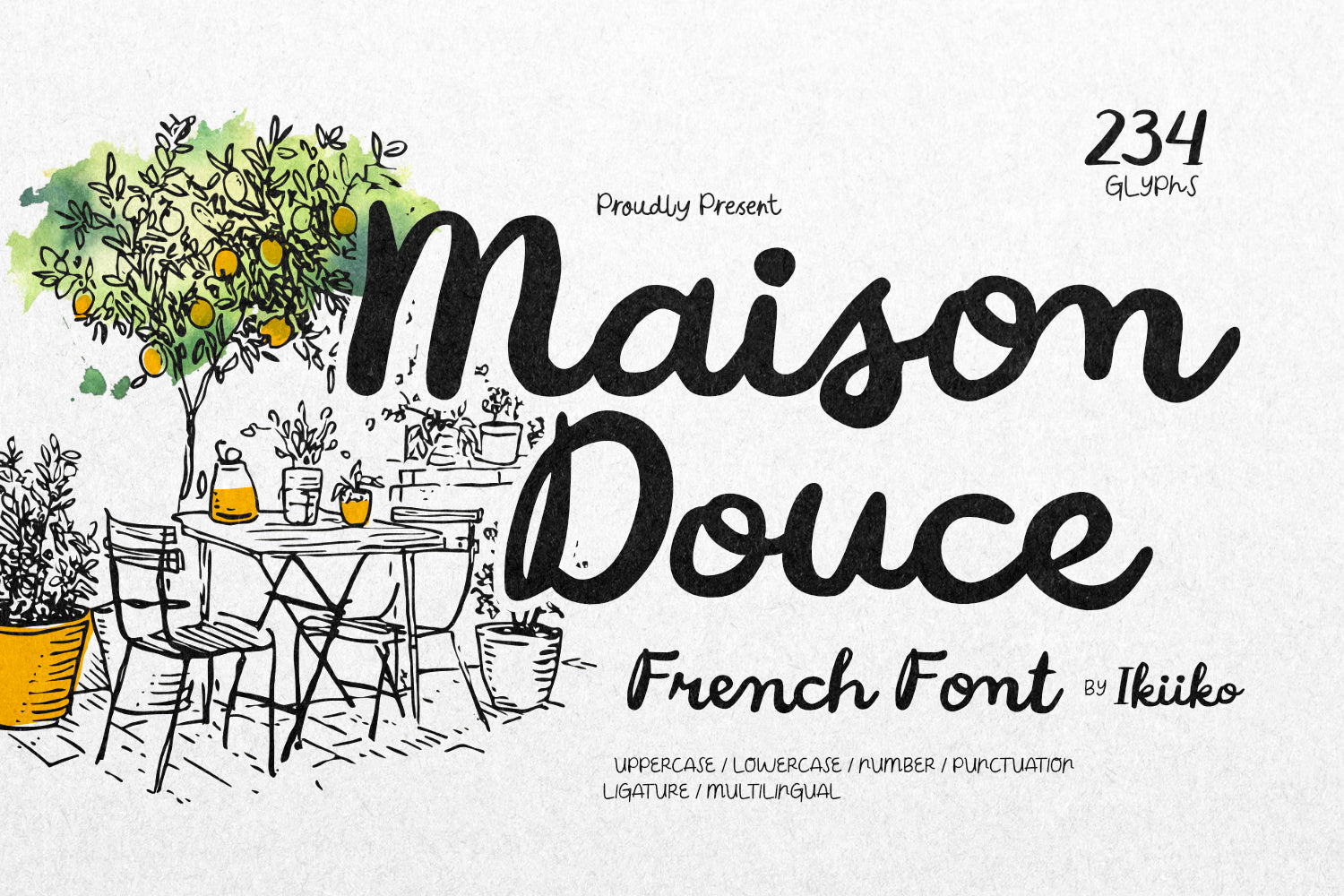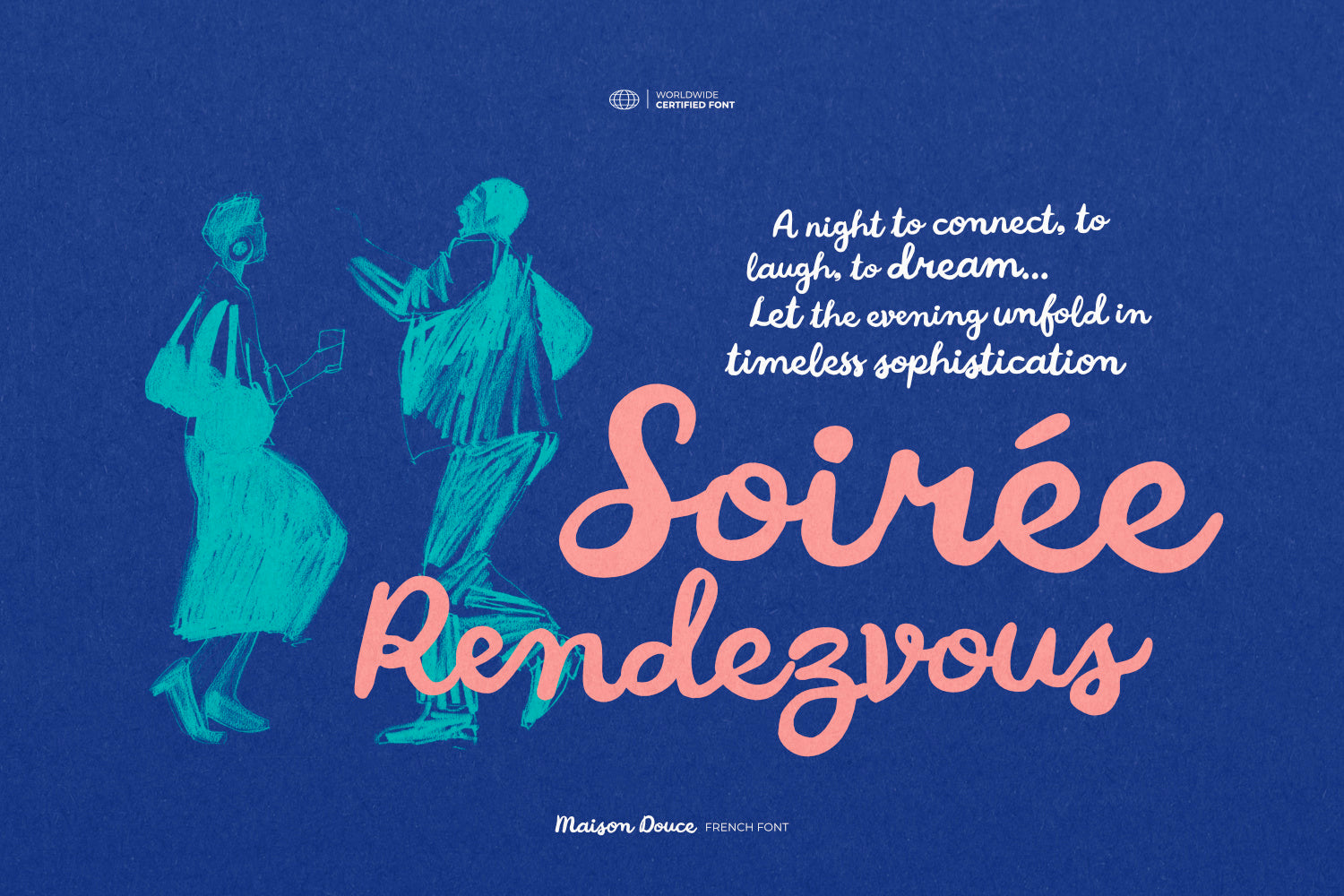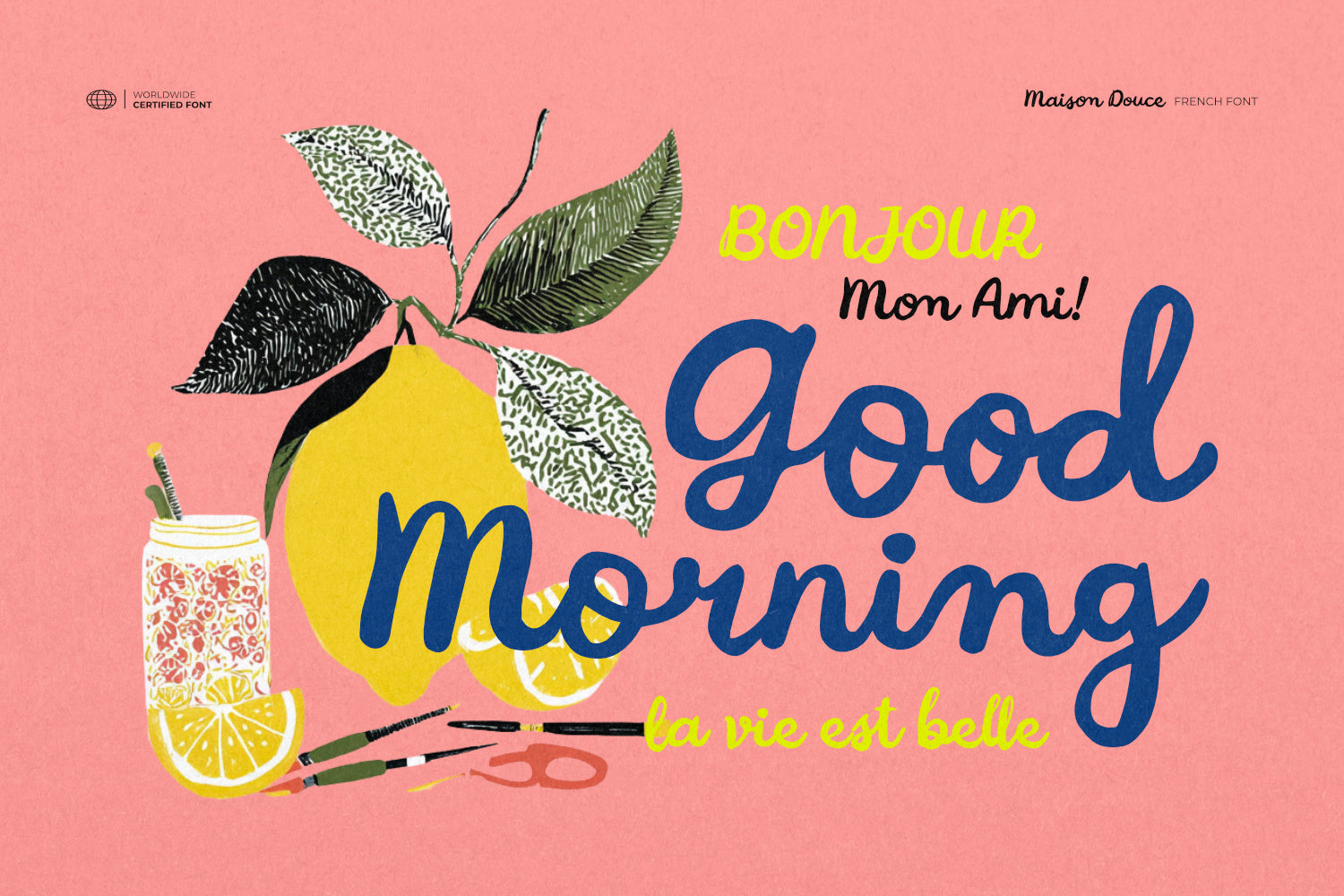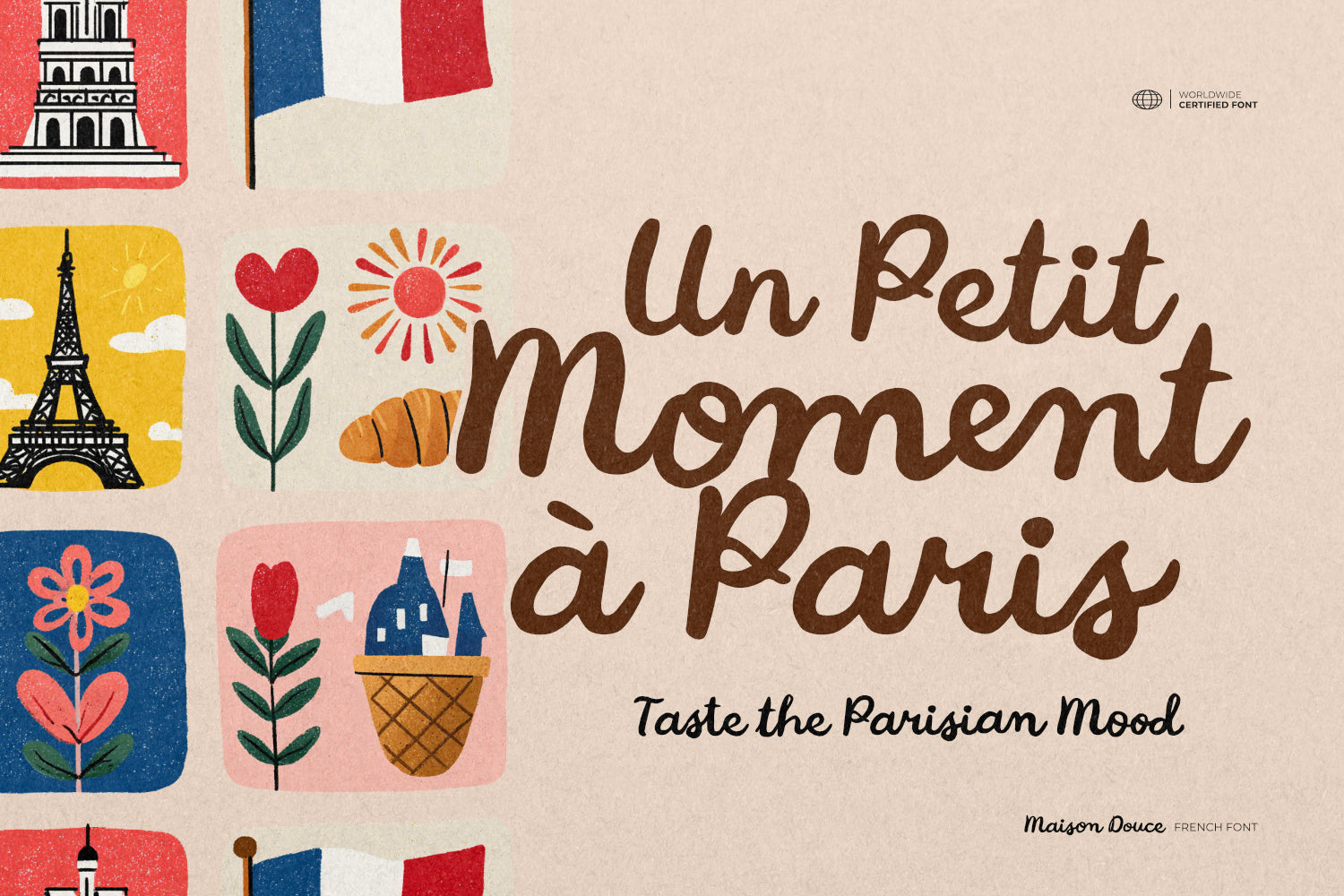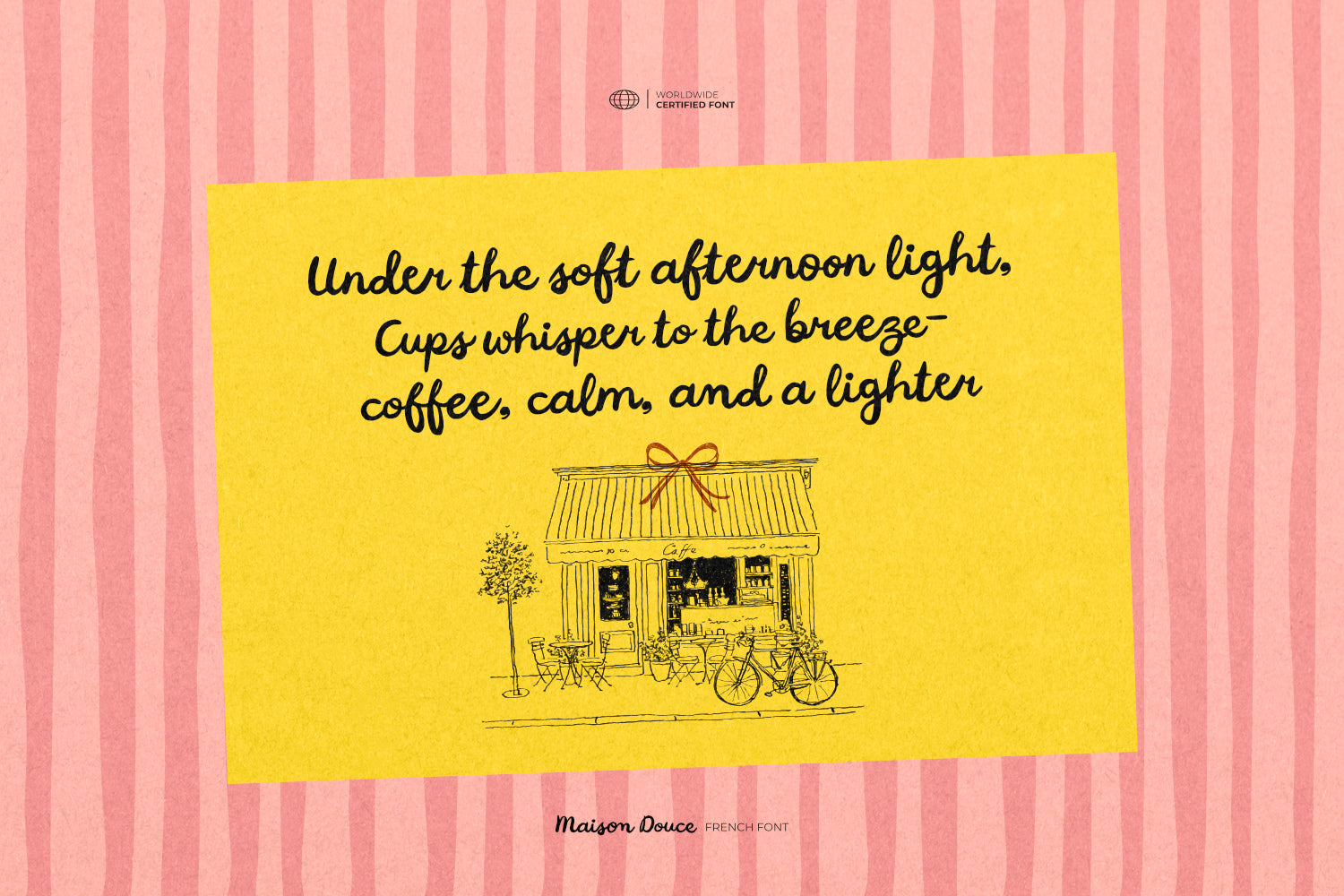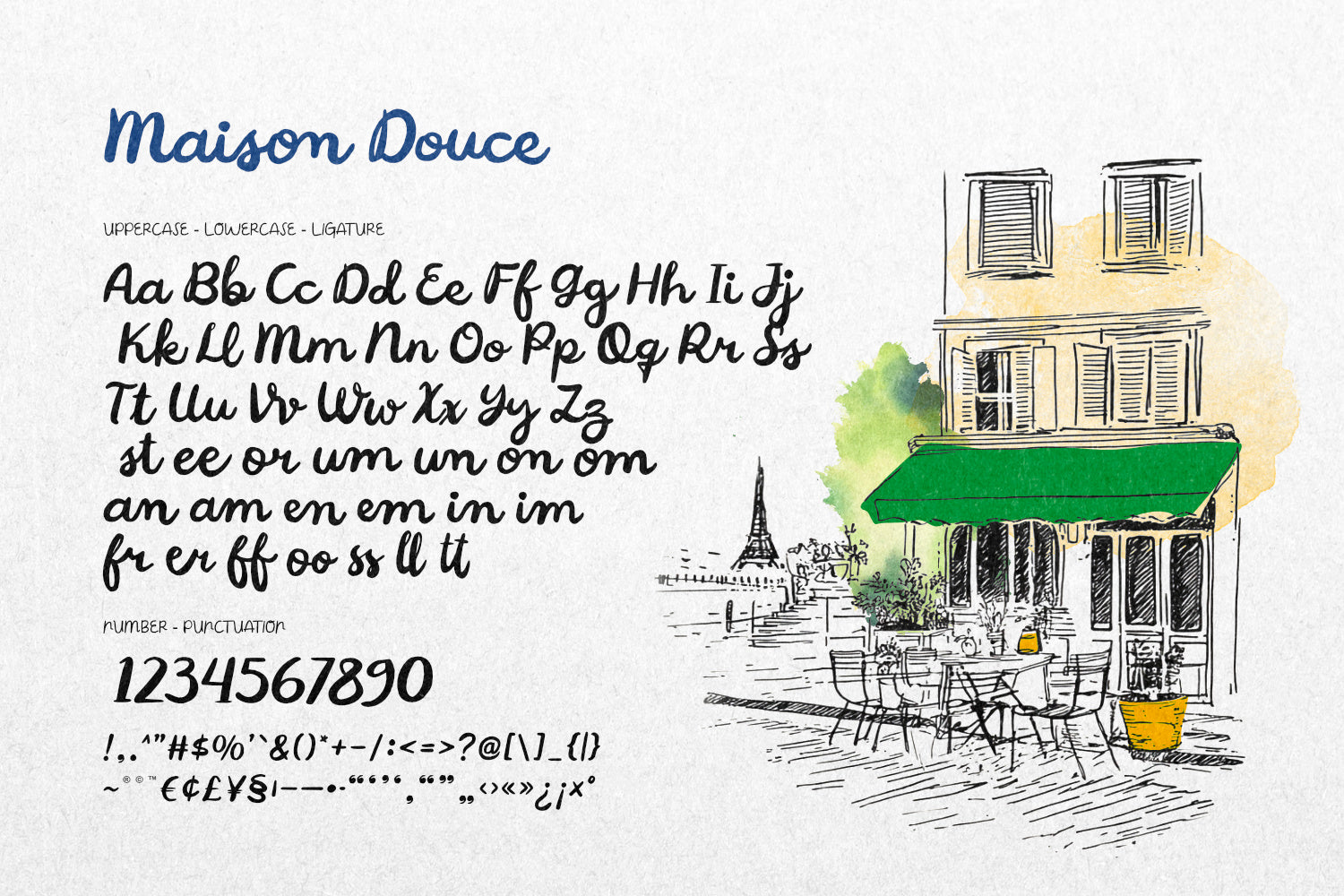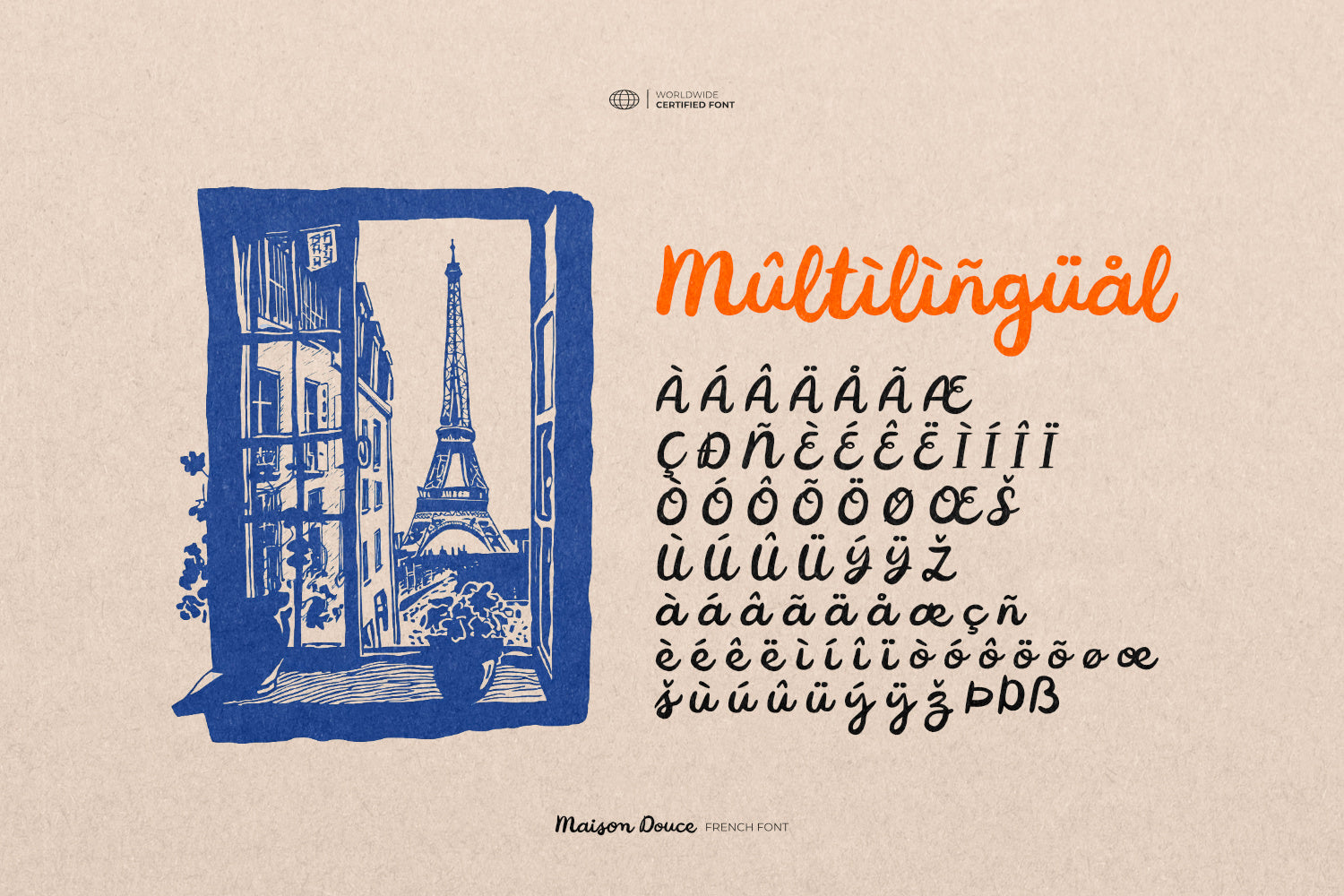
Proudly Present Maison Douce - French Font, created by ikiiko.
Maison Douce is a font that brings warm café Vibes, Handmade charm, and expressive Handwriting energy into every design. Inspired by the streets of Paris, this typeface blends the soul of traditional Art with the raw texture of modern Painting, creating a fresh yet nostalgic aesthetic that feels effortlessly chic.
Crafted with a human touch, Maison Douce captures authentic handmade strokes—bold, smooth, and full of personality—making it perfect for branding and anything that needs that unmistakable French vibes look. Whether you're designing for a dreamy Parisian café brand or adding artistic flair to your digital creations, Maison Douce brings the spirit of Paris, the warmth of traditional art, and the fluid romance of real handwriting in one beautiful, expressive font.
This font is perfect for a French style posters, traveling stuff, cafe branding, packaging, book cover, social media ads, invitations, food & beverages, quotes, or simply as a stylish text overlay to any background image.